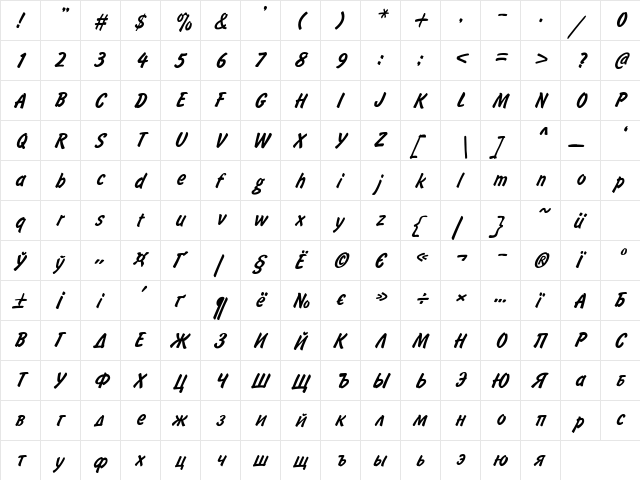
BrushType-SemiBold-Italic Regular Font Preview
Design Context for BrushType-SemiBold-Italic Typeface
BrushType-SemiBold-Italic brings a calligraphic fluidity to the page — its connecting strokes and expressive curves give it an unmistakably human quality. Its bold stroke weight gives it real presence on the page.
Font Pairing: Combine BrushType-SemiBold-Italic with a simple geometric sans for maximum contrast — the tension between flowing curves and clean structure is a classic typographic pairing.
Pro Tip: Pair BrushType-SemiBold-Italic with a clean sans-serif for supporting text. The contrast between fluid script and geometric structure creates an elegant typographic hierarchy.